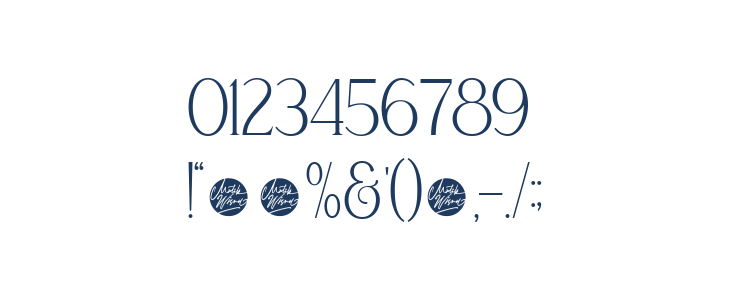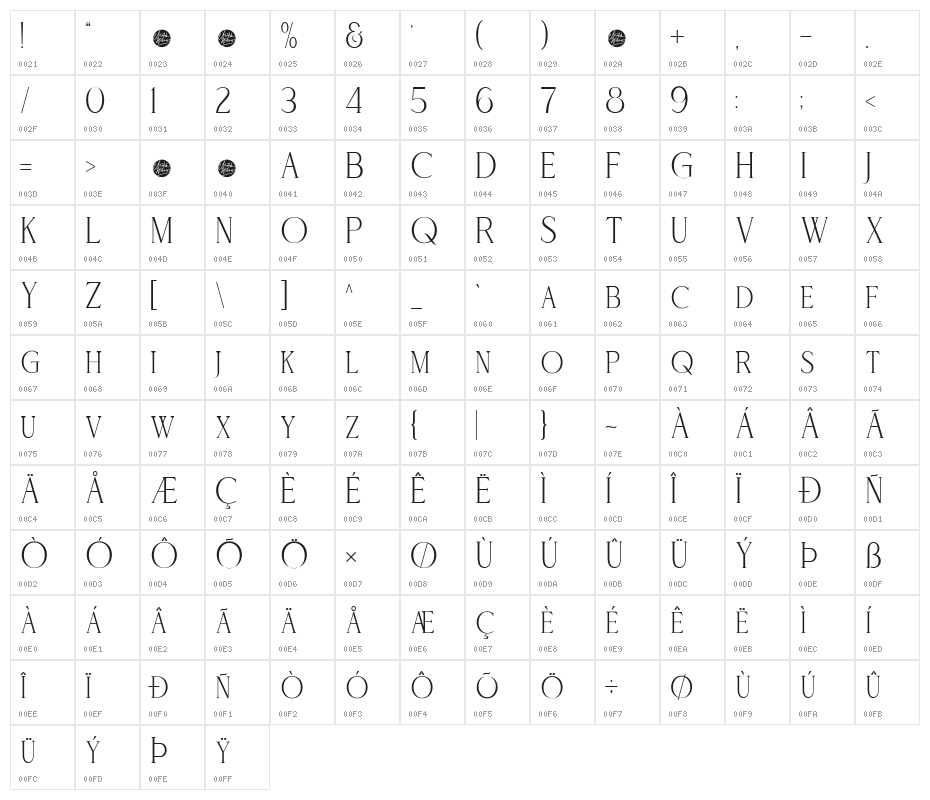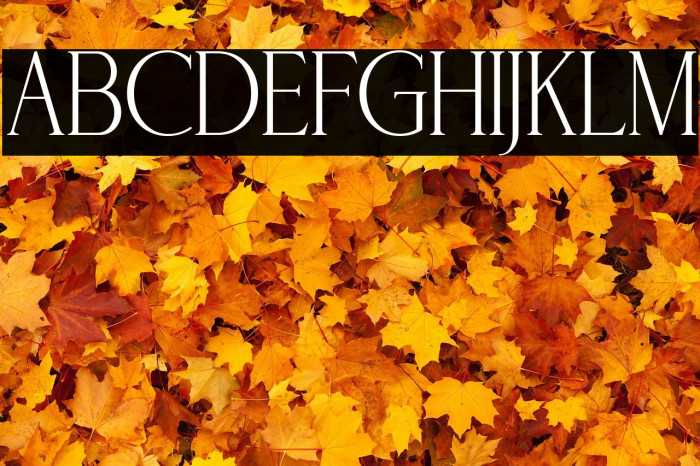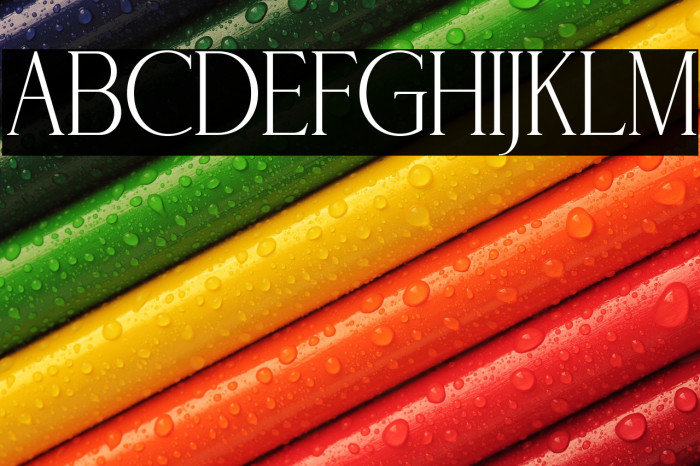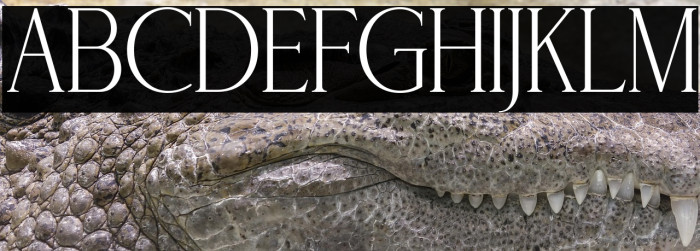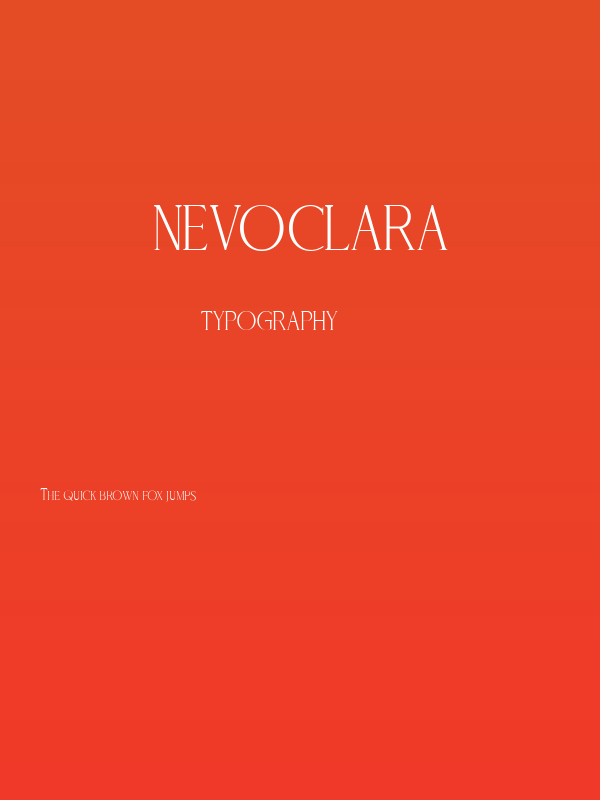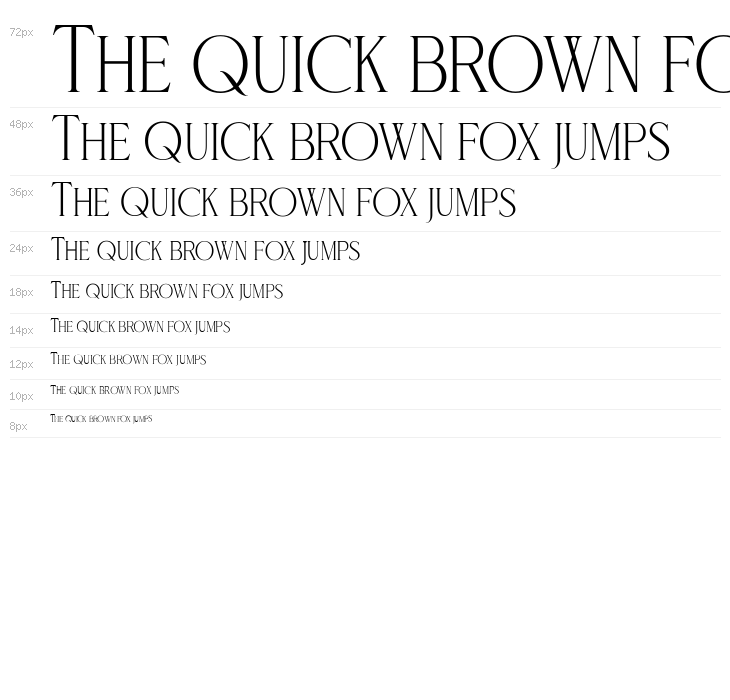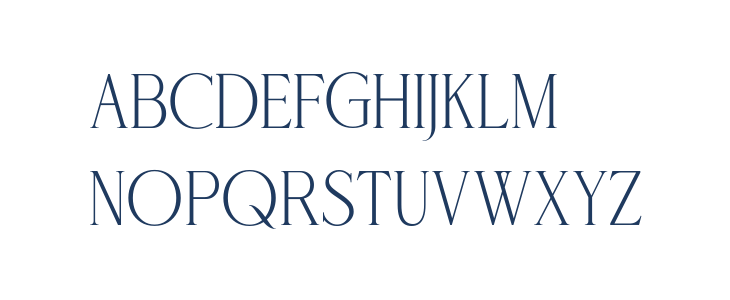
NEVOCLARA Font
NEVOCLARA Description
This font exhibits a refined and elegant serif style, characterized by its thin, elongated strokes and high contrast between thick and thin lines. The uppercase letters are tall and stately, with a classic feel that evokes a sense of sophistication. The lowercase letters maintain a consistent style, complementing the uppercase with their graceful curves and balanced proportions. The numerals are sleek and modern, fitting seamlessly with the overall aesthetic. Special characters are thoughtfully designed, maintaining the font's cohesive look. This font is ideal for projects that require a touch of elegance and formality.
| Use Case | Headlines, Logos, Editorial design |
| Proposed Projects | Ideal for luxury branding, editorial design, wedding invitations, and high-end product packaging. |